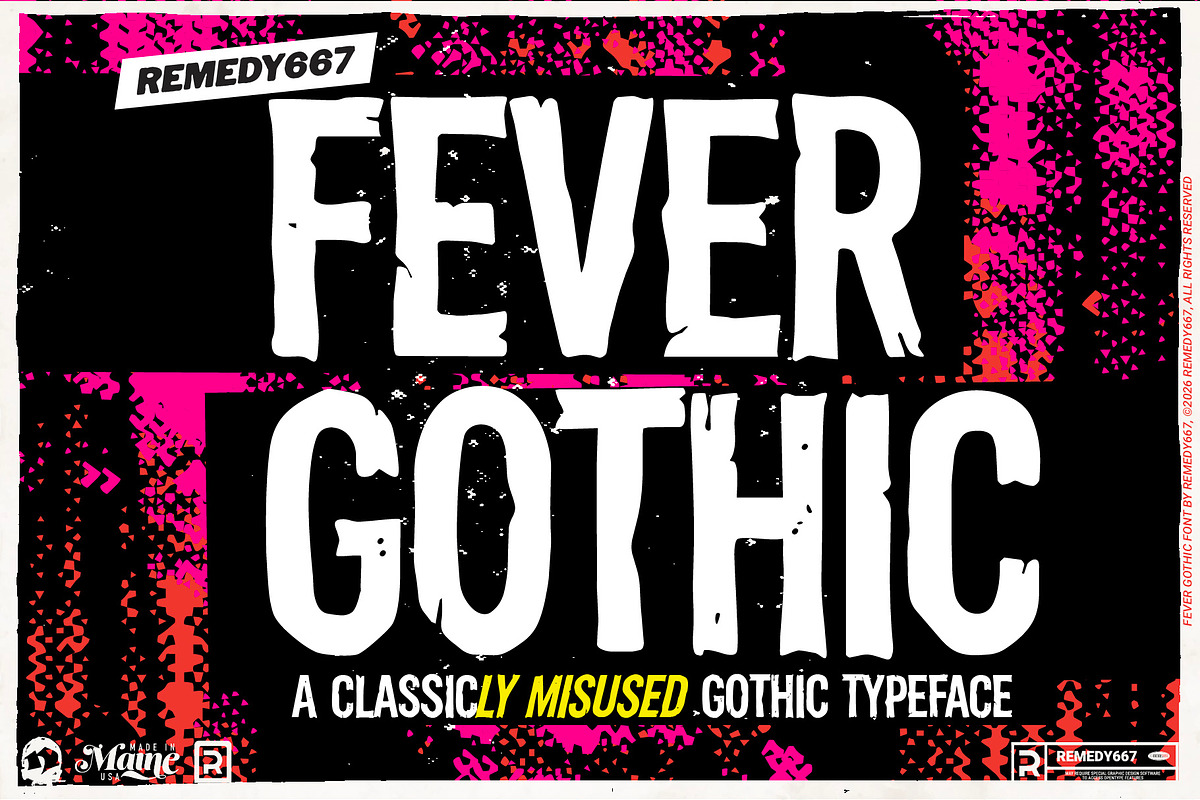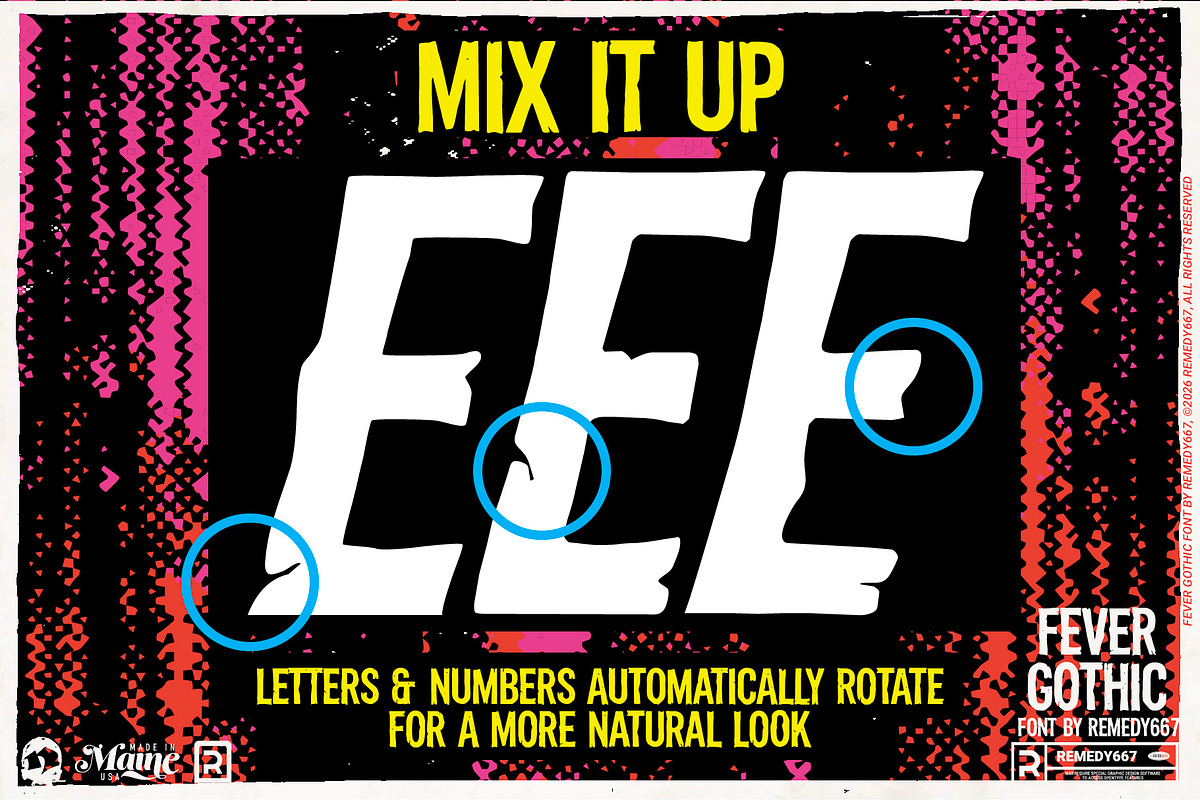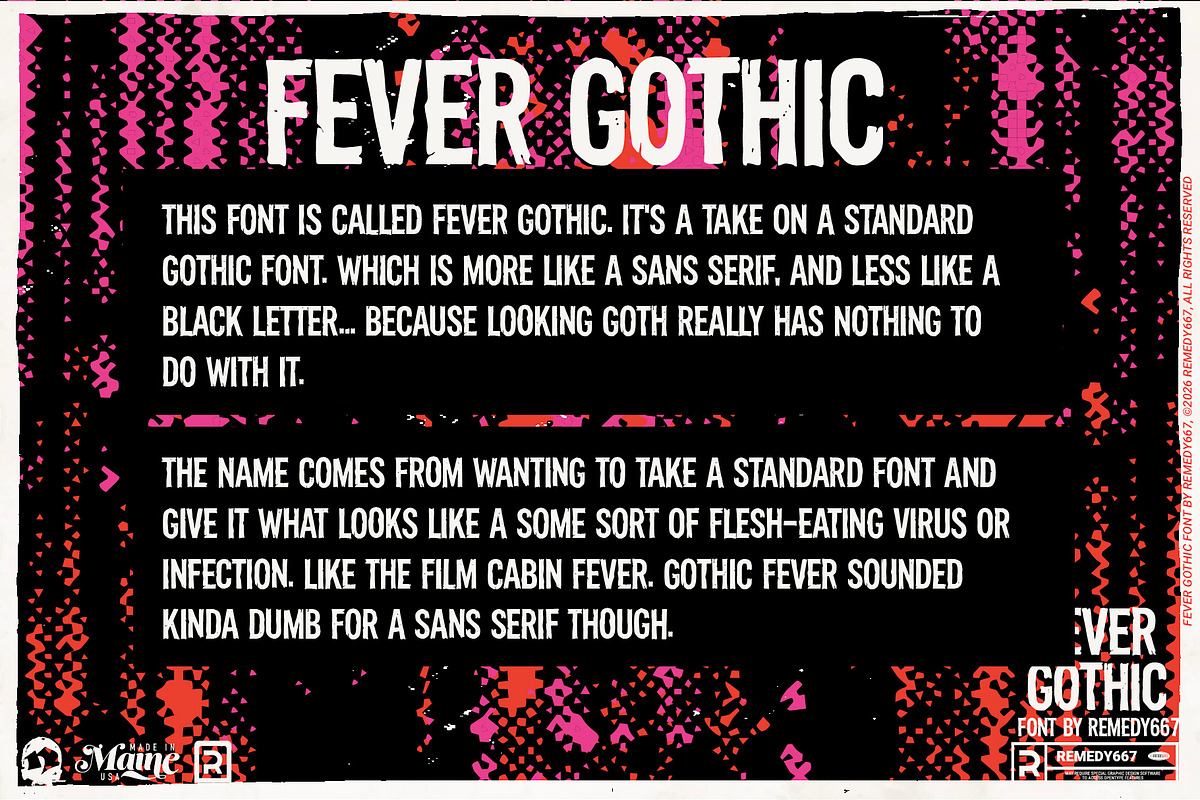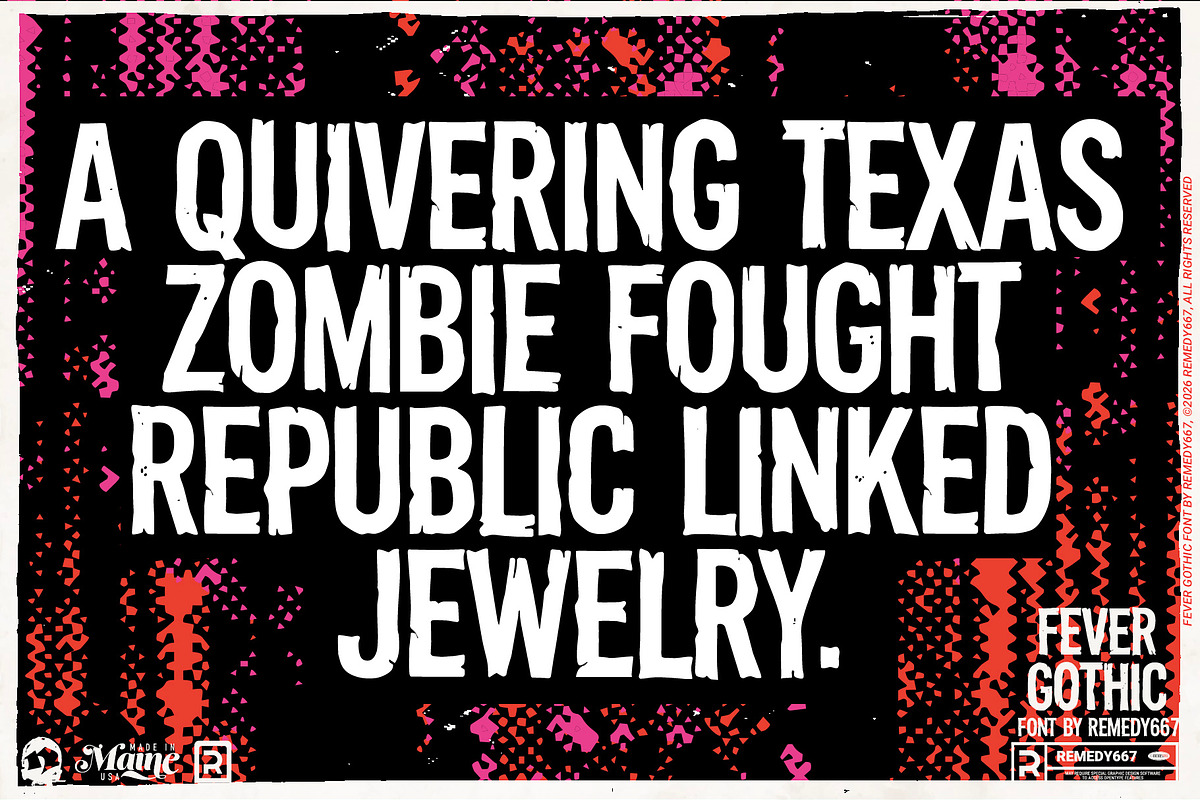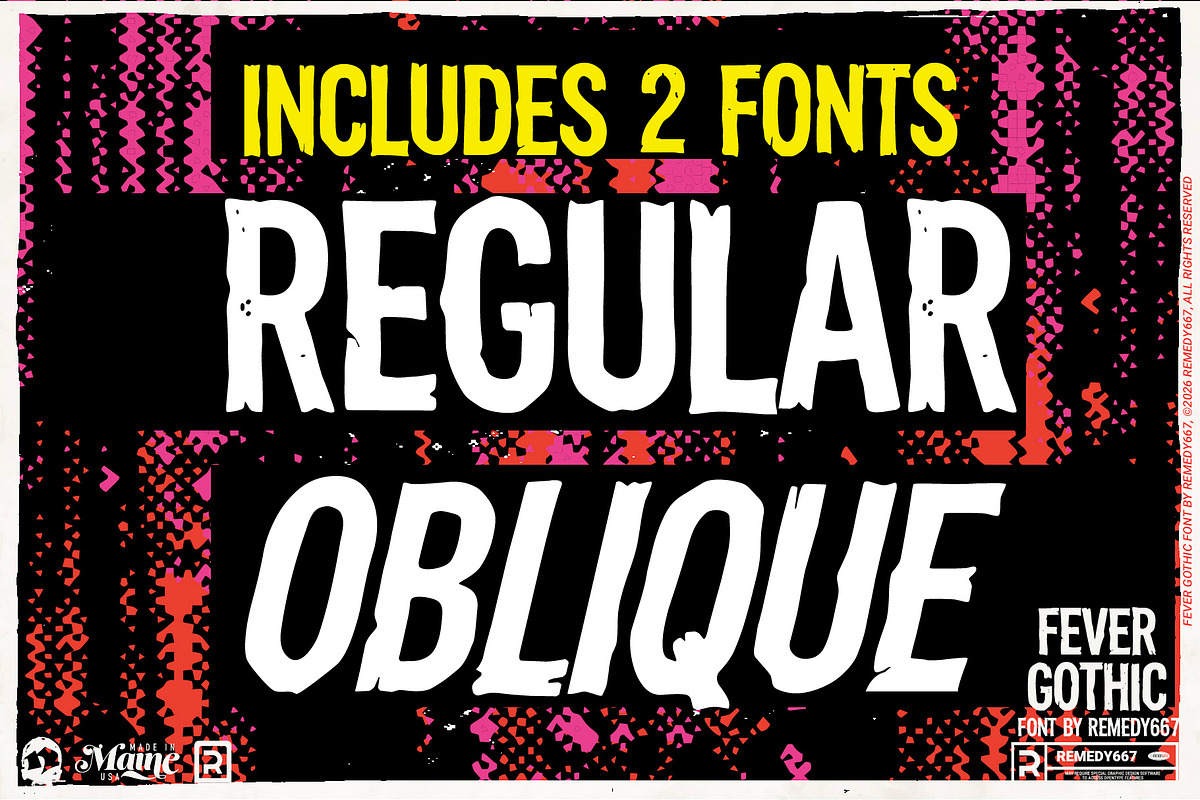
Fever Gothic
Let Fever Gothic infect your designs with a delicious decay! This terrorizing take on a standard Gothic typeface looks as though it’s been bitten by a flesh-eating disease. Once classic… now corroded.
Perfect for when you want a touch of age without losing readability, Fever Gothic balances traditional structure with a horror theme. Available 2 styles, Regular and Oblique, this typeface spreads its disease with versatility.
Classic Gothic structure with corroded, aged detailing
Doubles elimination for letters and numbers via OpenType features
Versatile for both display and general use
Multilingual support for worldwide decay